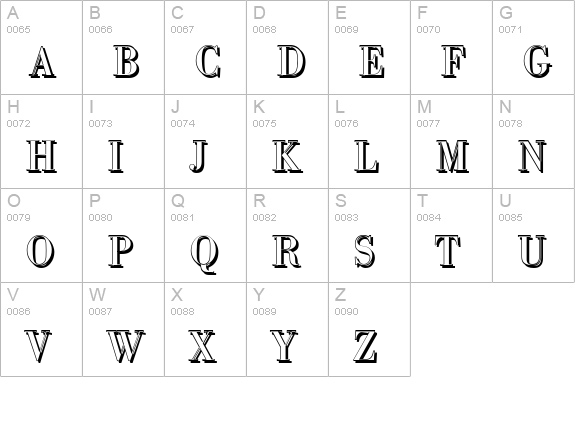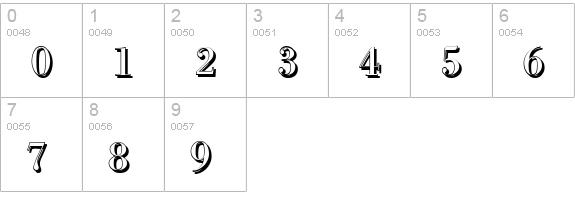
BodoniShadow-Regular is the standard, neutral variant in the BodoniShadow typeface family \xE2\x80\x94 well suited to general body text, paragraphs, and standard typographic work.
BodoniShadow-Regular is an elegant and sophisticated font that exudes a sense of timeless beauty and refinement. With its clean lines and classic serifs, this font is perfect for adding a touch of sophistication to any design project. The shadow effect adds depth and dimension, making text stand out in a subtle yet striking way. What sets BodoniShadow-Regular apart is not only its stunning visual appeal but also the fact that it is available for free download at FontsMarket.com. This means that designers and creatives of all kinds can easily access and use this beautiful font in their projects without any cost involved. Whether you are working on a branding project, a poster design, or any other creative endeavor, BodoniShadow-Regular is sure to elevate your work with its timeless elegance and captivating style. Download this font for free today and unlock a world of possibilities for your design projects.